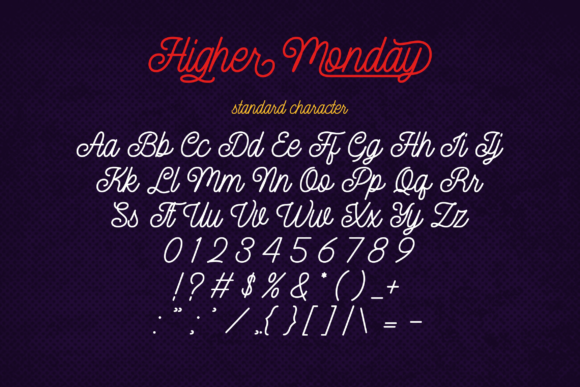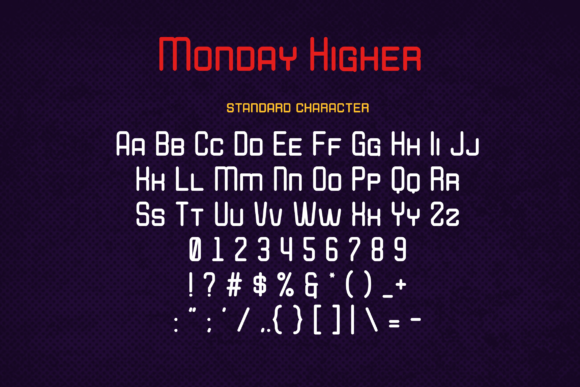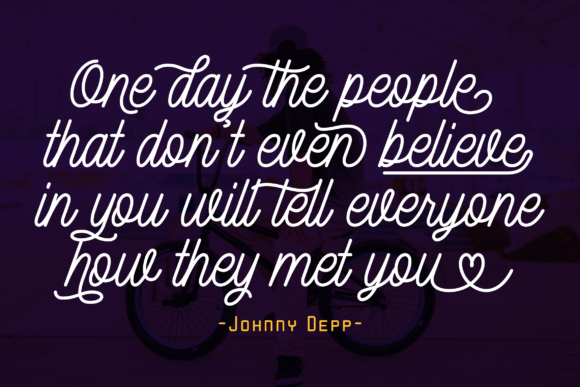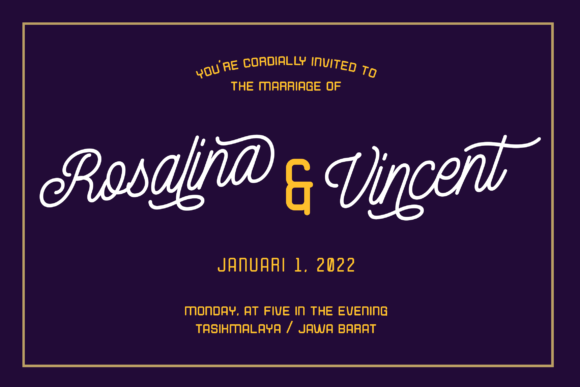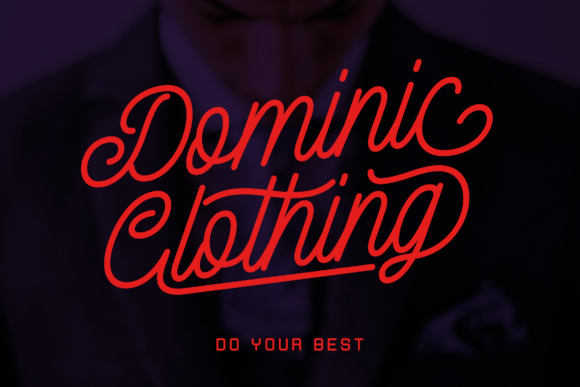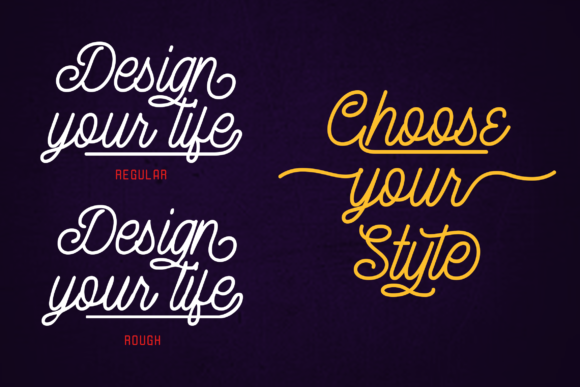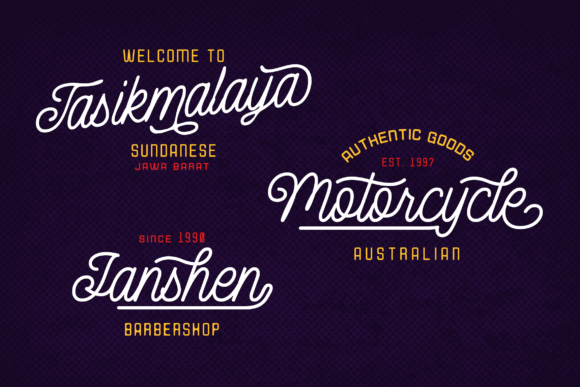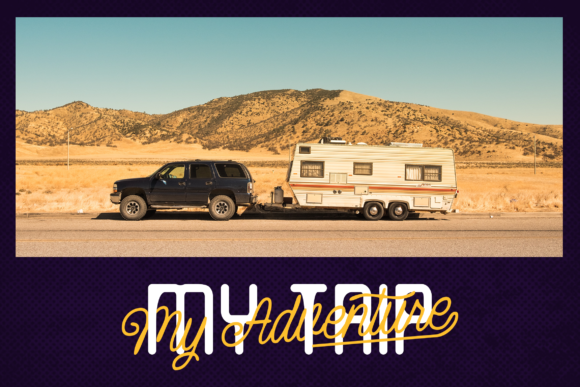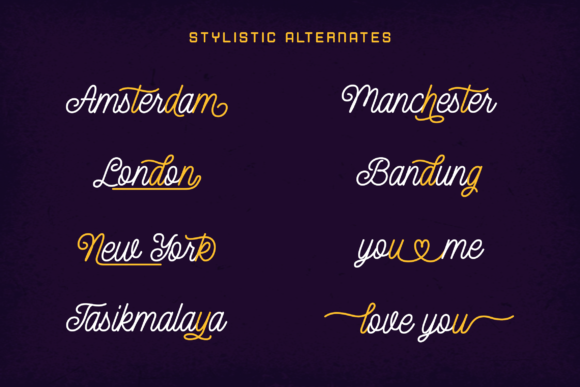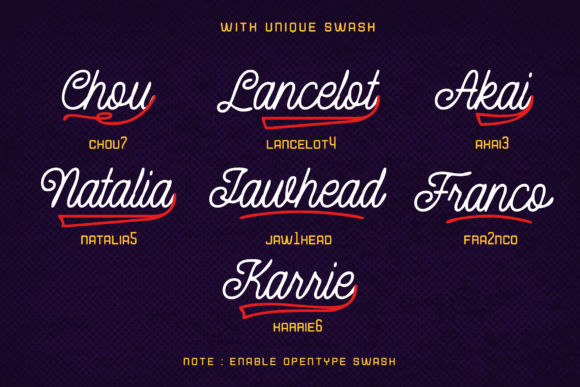
Higher Monday Font
About Higher Monday Font
Higher Monday is a modern and stylish script font that strikes a perfect balance between elegance and trendiness. With its clean lines and smooth curves, it exudes a sense of sophistication that will elevate any design project you embark on.
The versatility of Higher Monday makes it suitable for a wide range of applications. Whether you’re designing greeting cards, headlines, invitations, or any other creative project, this font will add a touch of romantic charm to your work.
For greeting cards, Higher Monday’s contemporary style will bring a fresh and modern feel to your messages. Its well-balanced letterforms create a harmonious look that enhances the sentiment of the card, making it the perfect choice for expressing love and affection.
In headlines, Higher Monday’s trendy and eye-catching design will capture attention and leave a lasting impression. Its unique and stylish lettering sets the tone for the content and adds a touch of sophistication, making it ideal for magazine covers, posters, and other promotional materials.
When used in invitations, Higher Monday’s romantic feel will create an inviting and captivating design. Its elegant curves and graceful strokes make it the perfect complement for wedding invitations, anniversary cards, and other special occasions where love and celebration are at the heart of the event.
No matter the project, Higher Monday’s versatility ensures that it can adapt to your creative vision effortlessly. Its well-balanced and trendy script style gives your designs a touch of modern sophistication while maintaining a sense of romantic charm.
So, if you’re looking for a script font that brings a perfect balance of trendiness and elegance, Higher Monday is the ideal choice. It guarantees to add a touch of romance and sophistication to your next design project, making it a truly memorable and impactful creation.